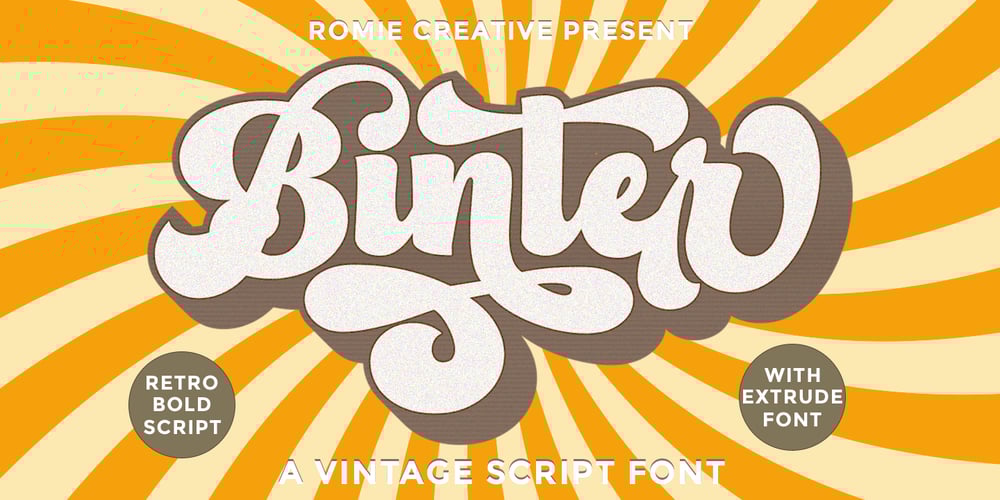
Binter Script Font Family was designed by Romi Rahmadi and published by Romie Creative. Binter Script contains 2 styles and family package options. Introducing Binter. A bold retro script that will take you back to the 60s. This typeface has an extrude version so you can create a retro effect font easily. This font is very suitable for application, especially on logos, and various other formal forms such as invitations, labels, logos, magazines, books, greeting/wedding cards, packaging, fashion, make up, stationery, novels, labels or all kinds of things. advertising purposes.Feature :uppercase & lowercase numbers and alternating PUA coded swash multilingual ligature punctuation We strongly recommend using programs that support OpenType features and Glyphs panels such as many Adobe and Corel Draw applications, so that you can view and access all variations of Glyphs.